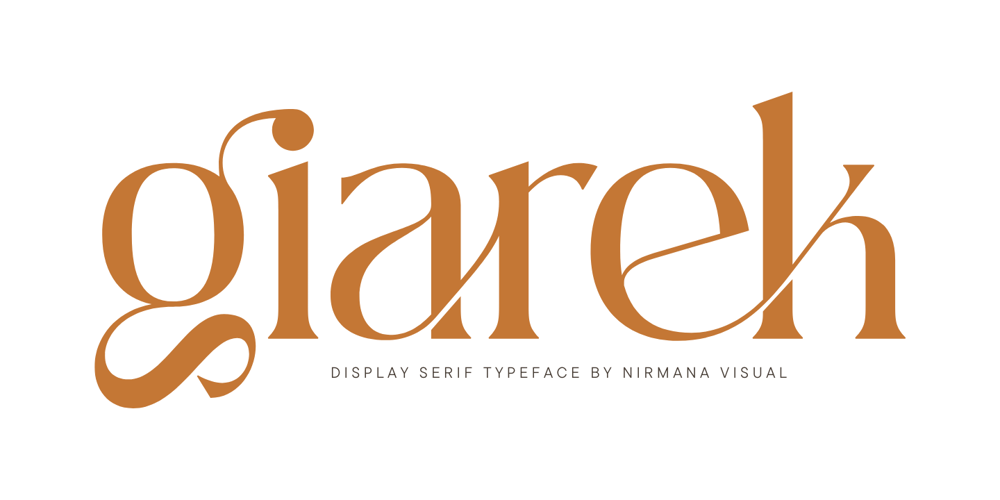
Giarek Font Family was designed by Sigit Dwipa and published by Nirmana Visual. Giarek contains 1 styles and family package options. Inspired by the elegance of classic typography and the beauty of calligraphy, this font exudes a sense of refined aesthetics. Its graceful strokes and balanced proportions make it an excellent choice for luxury branding, high-end invitations, editorial design, and formal occasions.